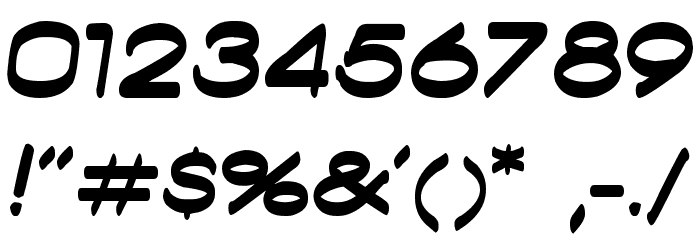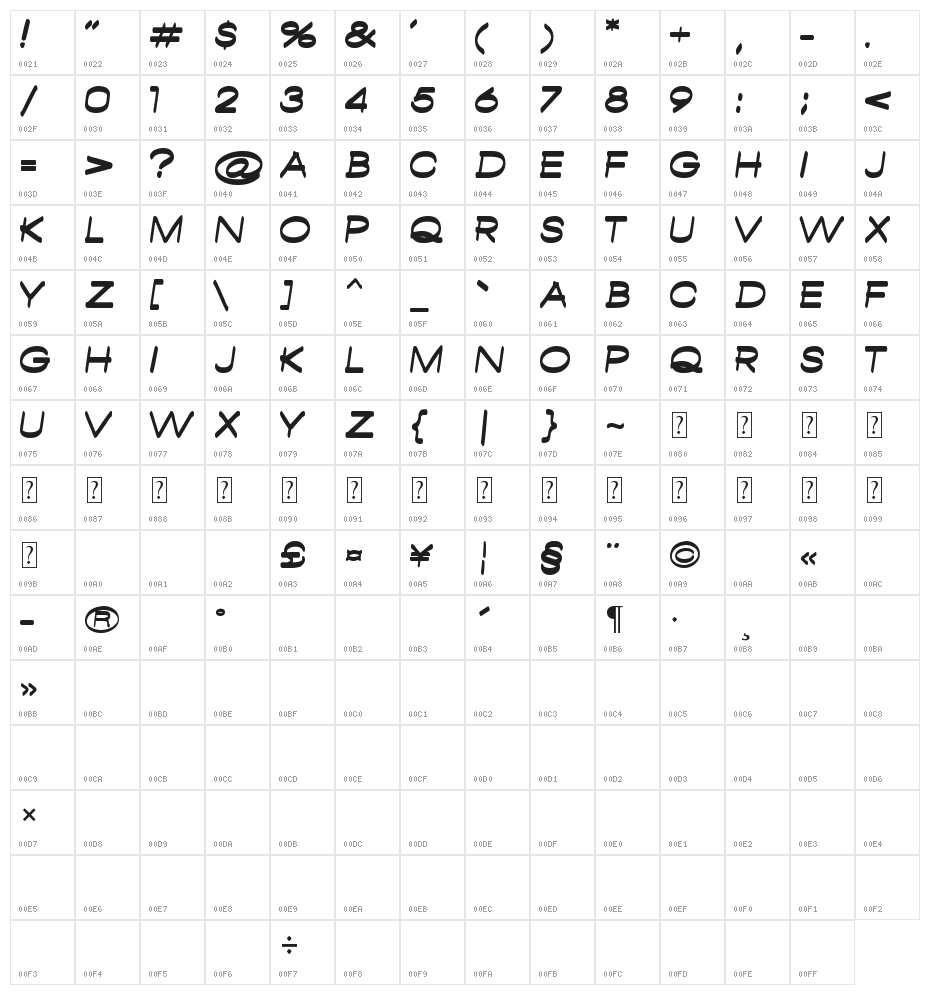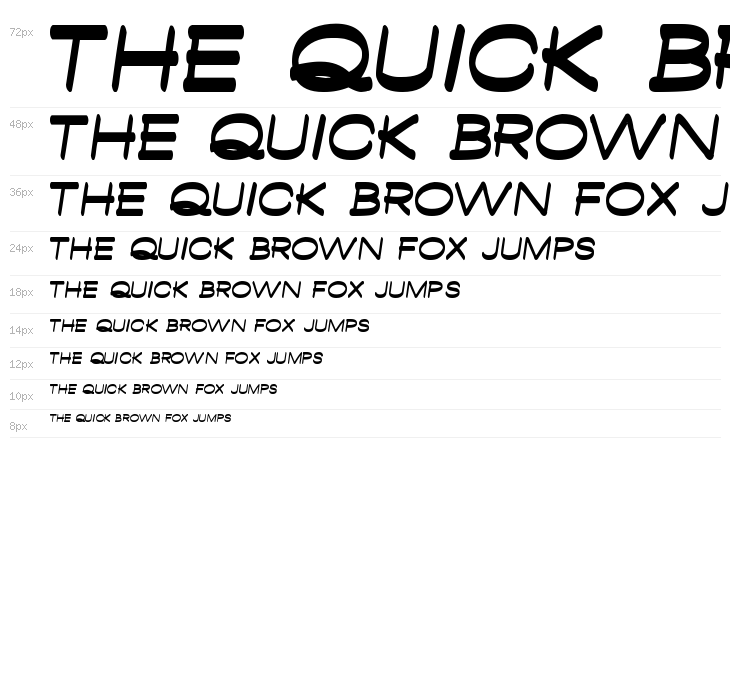
Ambambo Font
Ambambo Description
This font features a dynamic and energetic style with a forward-leaning slant, giving it a sense of motion and speed. The characters are bold and rounded, with a smooth, continuous flow that enhances readability while maintaining a unique flair. The uppercase and lowercase letters share a consistent design, with slightly exaggerated curves and a playful aesthetic. The numerals are equally bold and maintain the same slanted style, ensuring uniformity across all characters. Special characters are well-integrated, offering a complete and versatile set for various design needs.
| Proposed Projects | Ideal for sports branding, dynamic posters, automotive advertisements, and any project requiring a sense of motion and energy. |